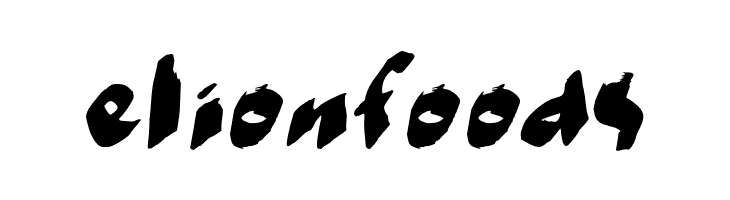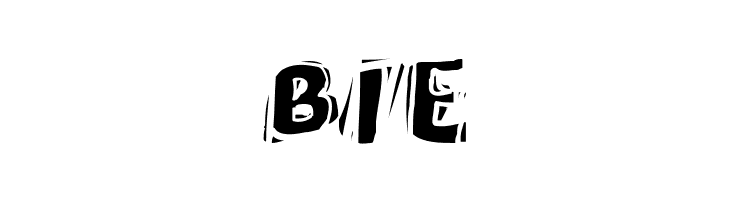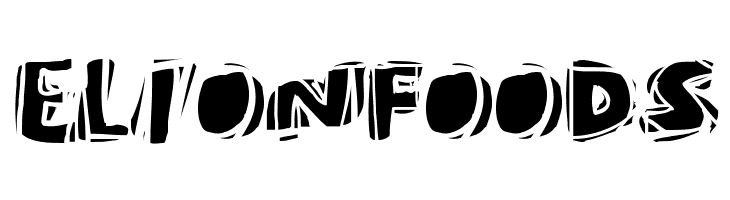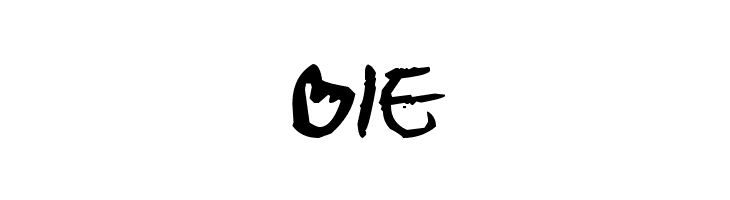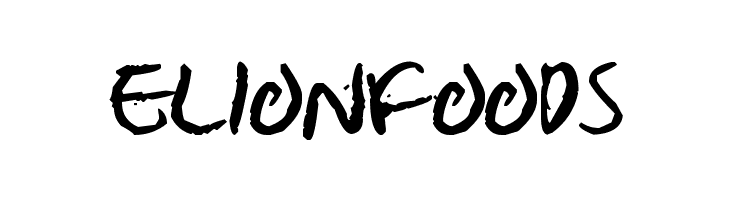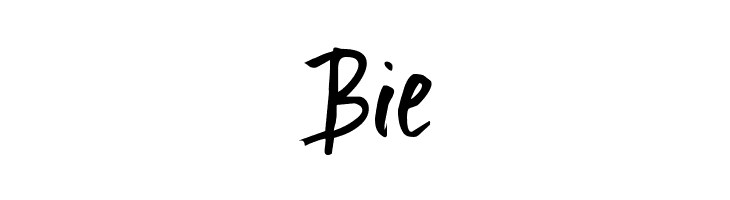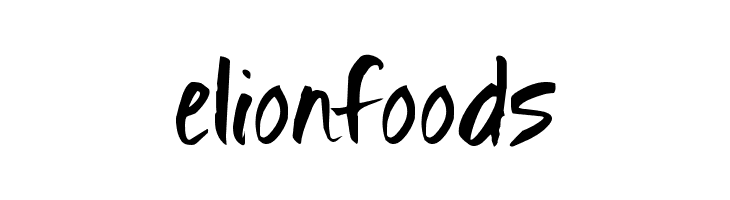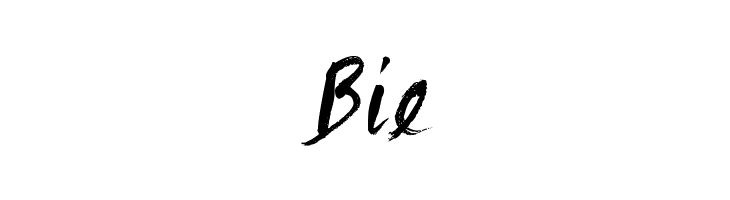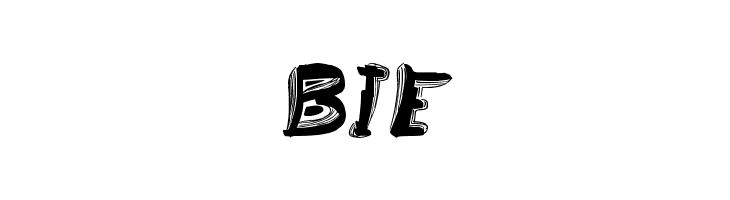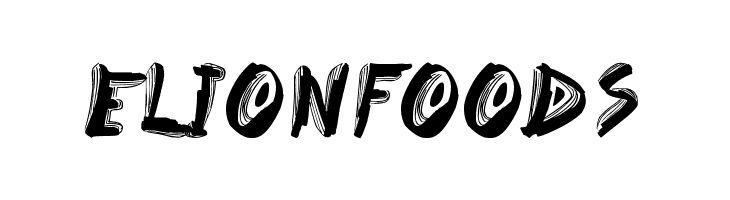
• all exes must die! Bold Italic
( Fonts by Press Gang Studios - Andeh Pinkard - www.pressgang-studios.com )
A bold, italicized font with a dynamic, brush-like style.
• MarkerMoeII
( Fonts by joeBob graff-X )
A bold, brush-stroke style font with dynamic and expressive characters.
• PuraVida
• NATURAL WRITING
( Fonts by www.kimberlygeswein.com - Kimberly Geswein )
A bold, brush-style font with a natural, handwritten appearance.
• Ignite the Light
( Fonts by Kimberly Geswein - kimberlygeswein.com )
A bold, brush-style font with dynamic, hand-drawn strokes.
• Feed The Bears
A playful, bold handwritten font with brush-like texture and dynamic strokes.
• Painted
( Fonts by Heather T. - oohlalaartsy.blogspot.com )
A bold, brush-stroke style font with dynamic and expressive characters.
• Broken Dreams
( Fonts by Rich Gast - www.greywolfwebworks.com )
A bold, brush-style font with dynamic, hand-drawn characters.
• SPAM
• ReliantTrash